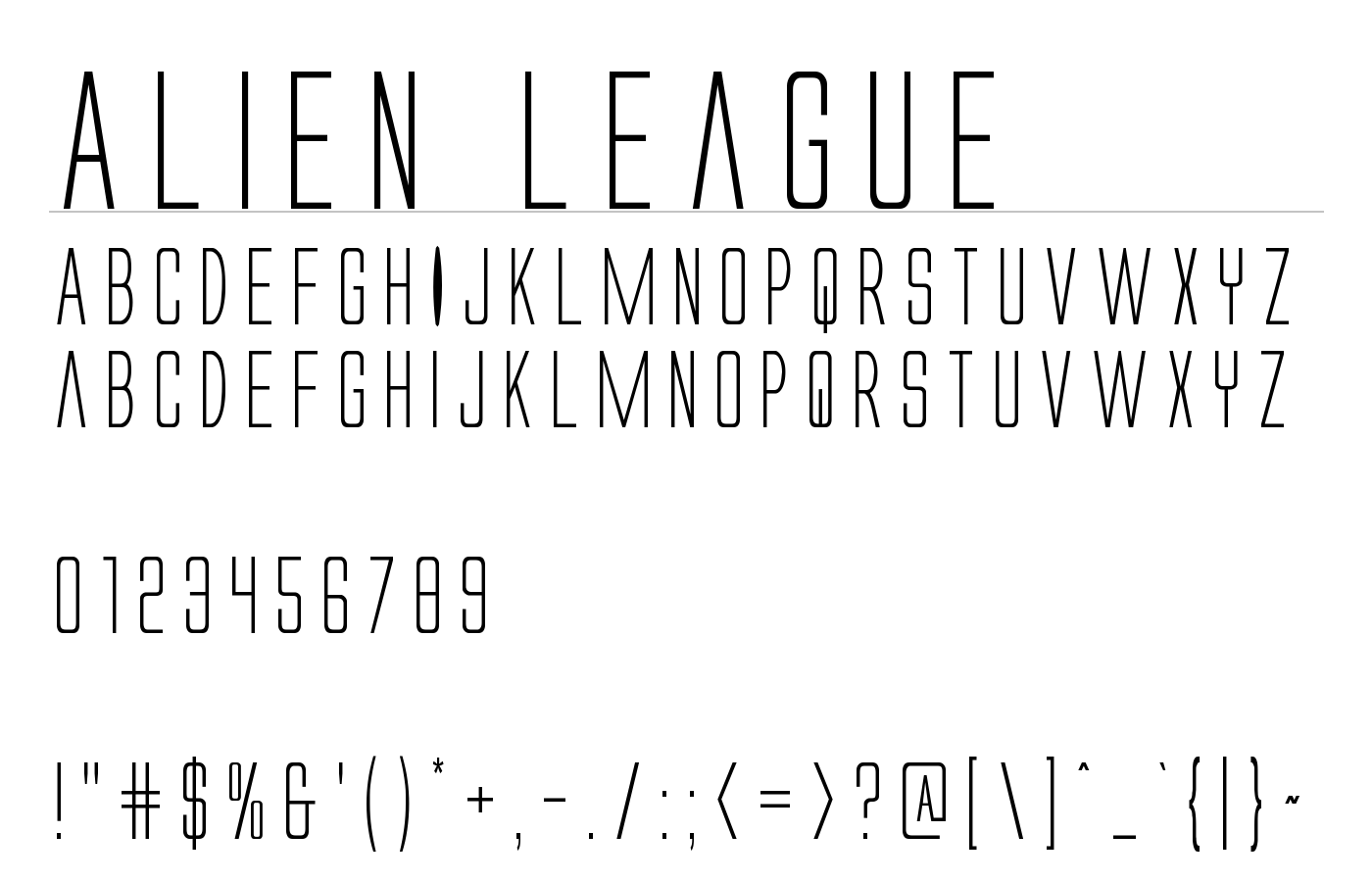
Alien League is a narrow, ultra-light sans serif font characterized by its tall, geometric letterforms and minimal stroke contrast. With a futuristic, sci-fi vibe, its precise, elongated shapes and subtle stylistic variants convey a sleek, modern aesthetic ideal for technology branding, digital headlines, and creative projects needing a clean yet distinctive look. This font works best in large sizes where its unique details can shine and make a bold, space-age statement.
Alien League Font
About Alien League Font